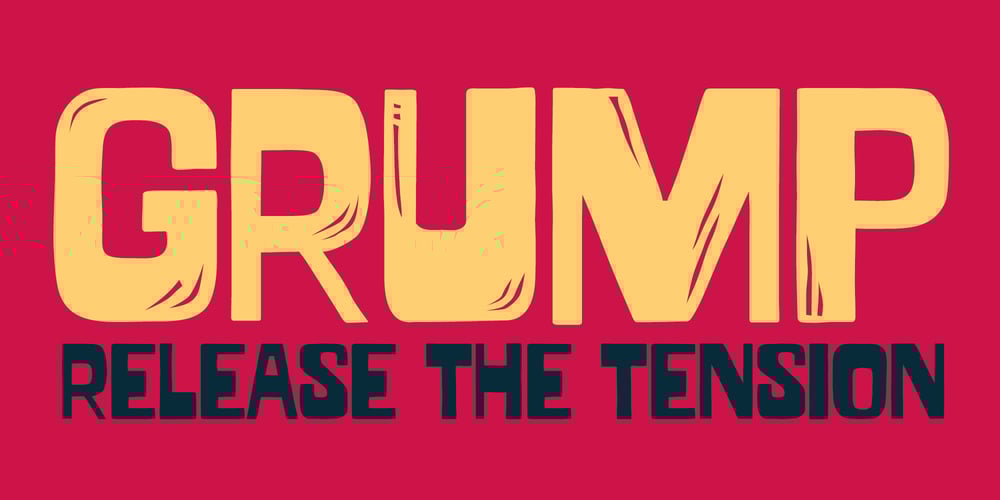
Grump Font Family was designed by Brian J. Bonislawsky, Dave Cohen and published by One Eyed Squid. Grump contains 2 styles and family package options. Need to make a seriously bold statement? Done with all the niceties, politeness, and decorum? Then get loud and in their face with GRUMP! Now get off my lawn!The Grump Family comes with two styles: Regular and Solid. The Regular has linoleum cut details, while the solid is…well, Solid.(Grump contains an extended Latin character set with added Vietnamese support.)